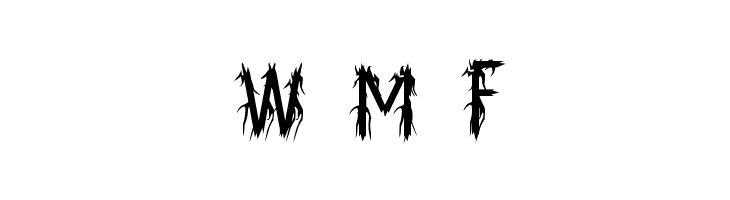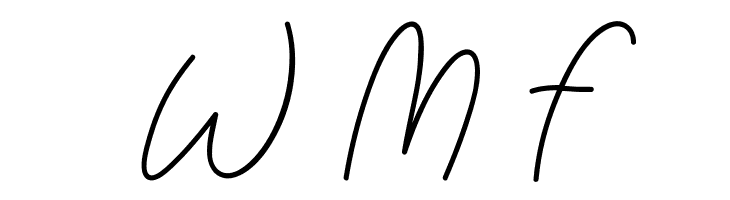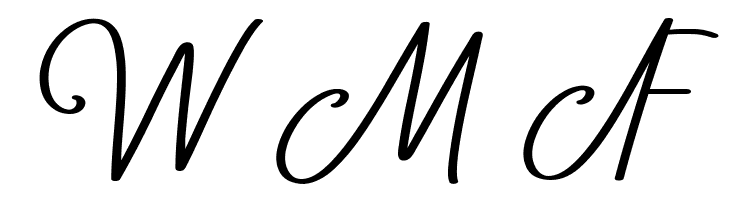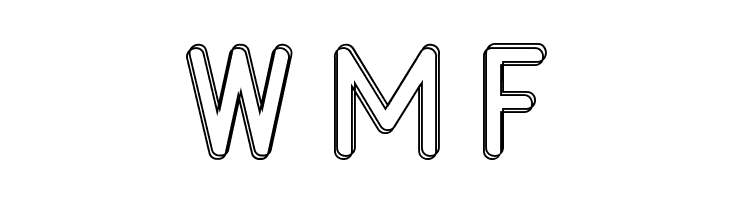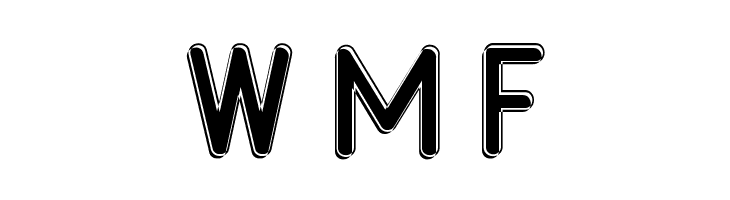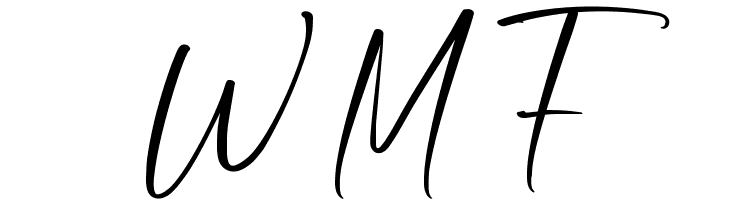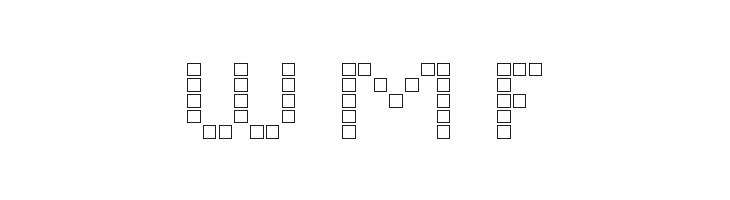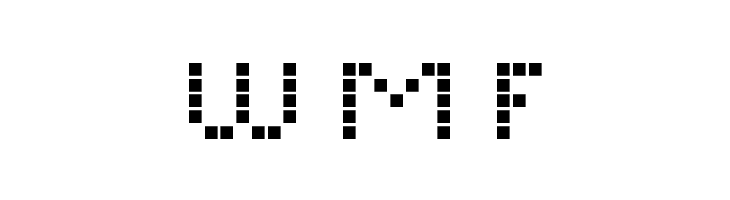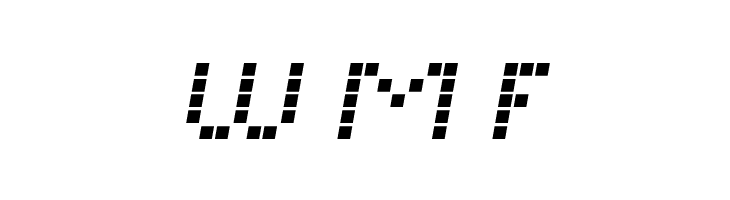
A bold, thorny font with a fierce and edgy design, perfect for dramatic visuals.
A fluid, cursive font with elegant, connected strokes and a modern yet classic appeal.
A flowing cursive font with elegant loops and smooth transitions.
A modern, playful outline font with a hollow, double-line structure.
A bold, outlined font with a modern and playful style.
A dynamic script font with flowing, interconnected letterforms and a modern, artistic style.
A playful, hand-drawn font with whimsical uppercase and bold lowercase letters.
A digital, pixelated font with outlined squares for a modern tech look.
A pixelated, dot matrix font with a digital and retro aesthetic.
A pixelated, italic font with a digital, modern style.